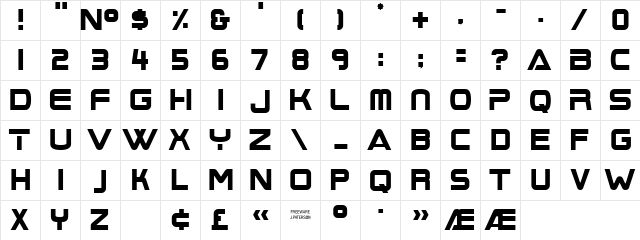
BoomBox Normal Font Preview
BoomBox Normal
BoomBox Normal Font Details
Design Context for BoomBox Typeface
BoomBox takes a measured approach to typography — its balanced proportions and neutral character make it a reliable workhorse for both digital and print work.